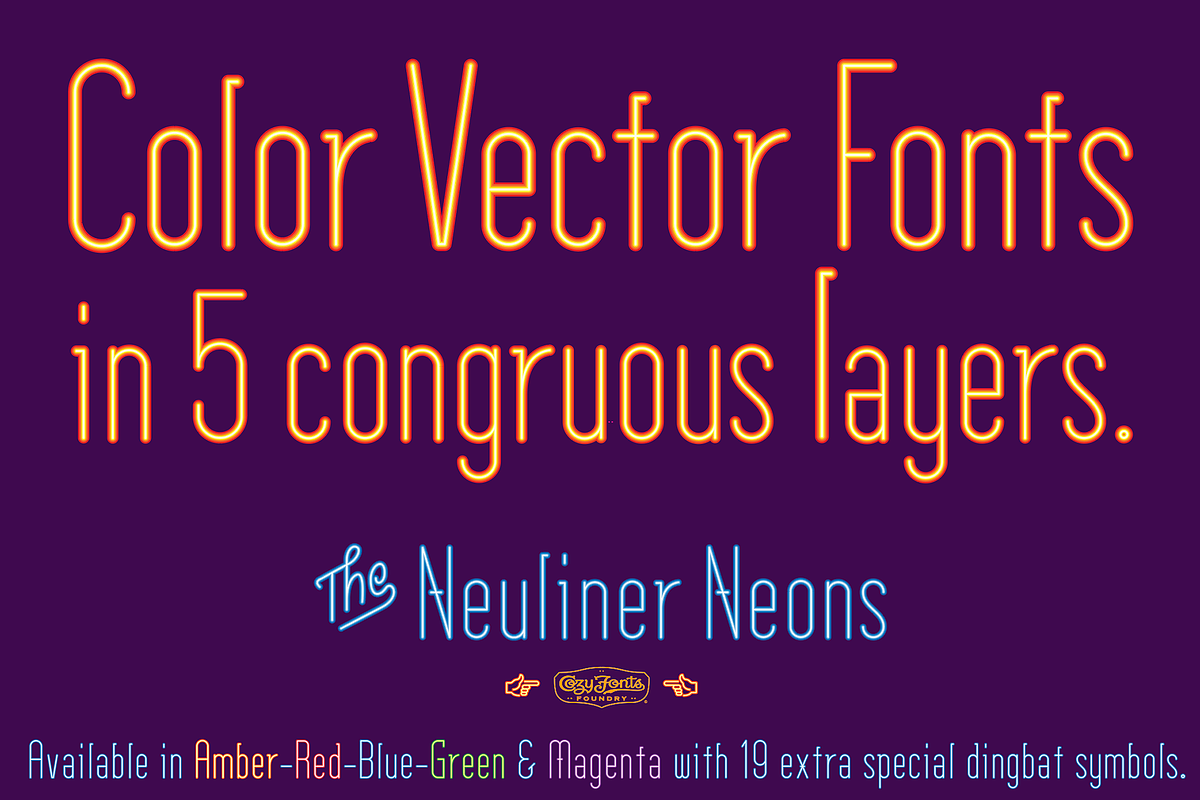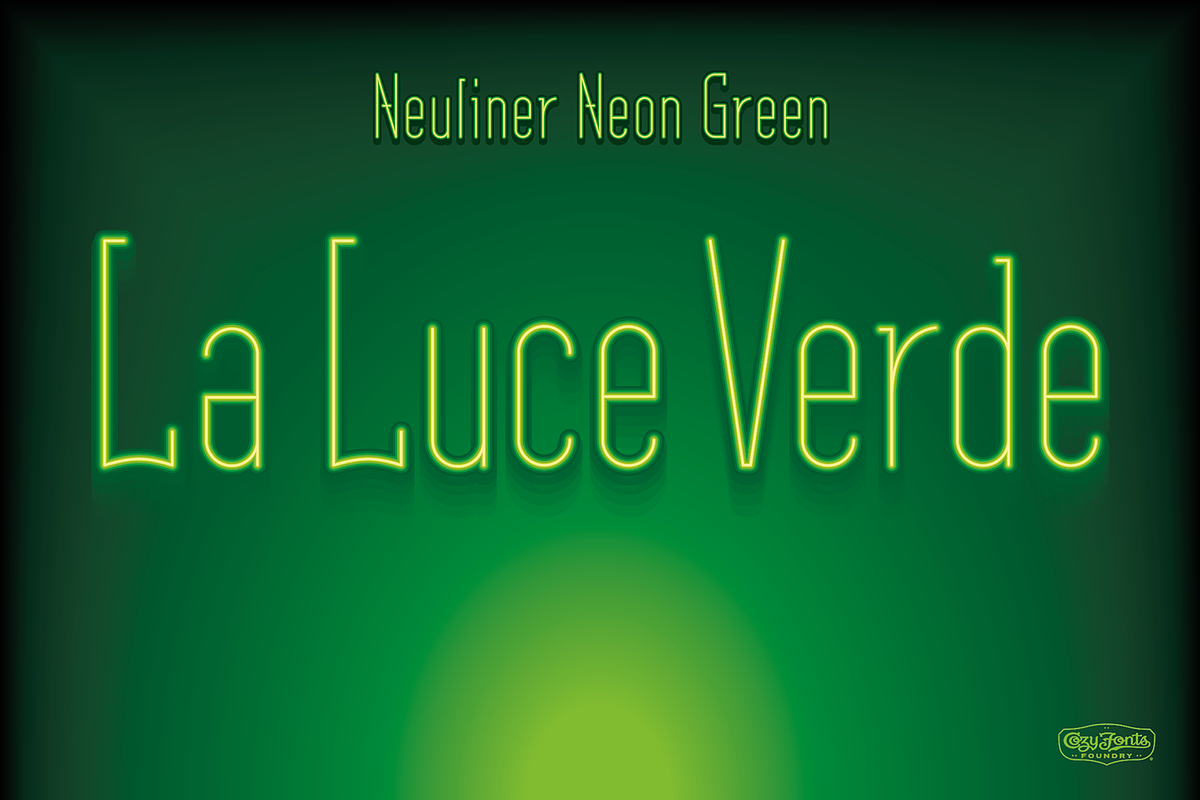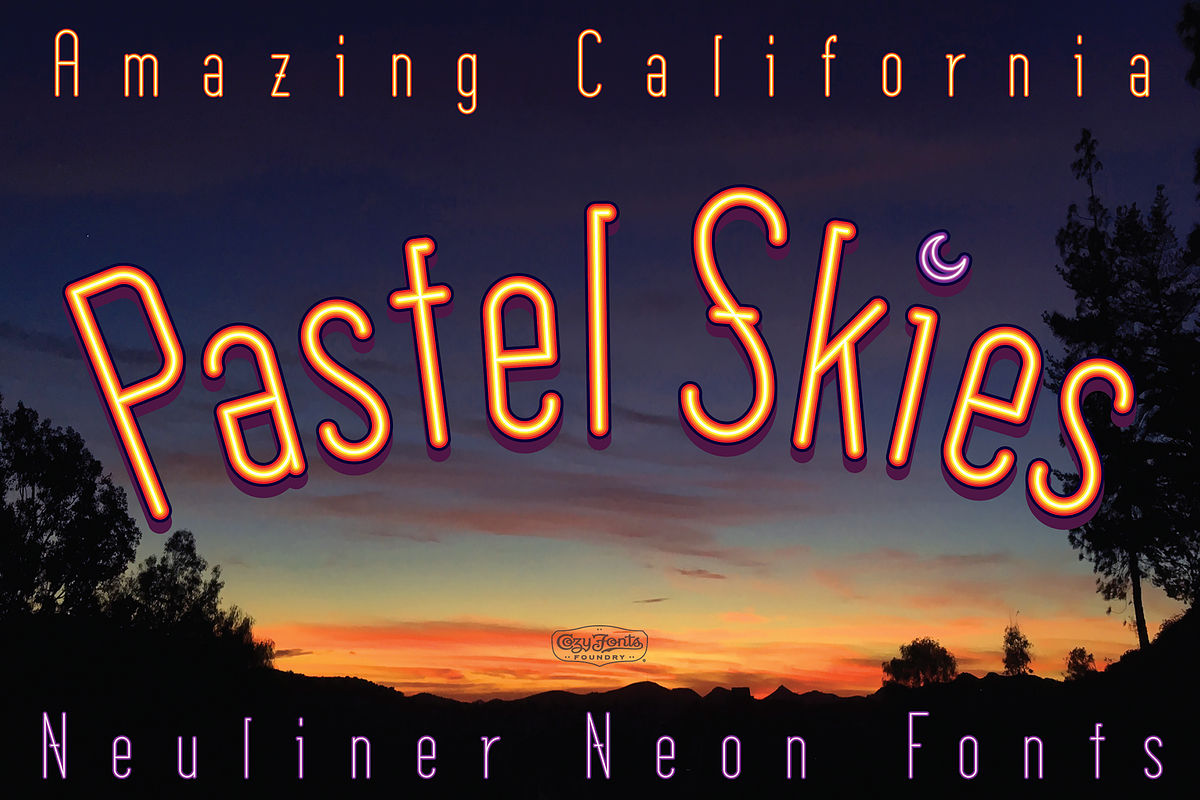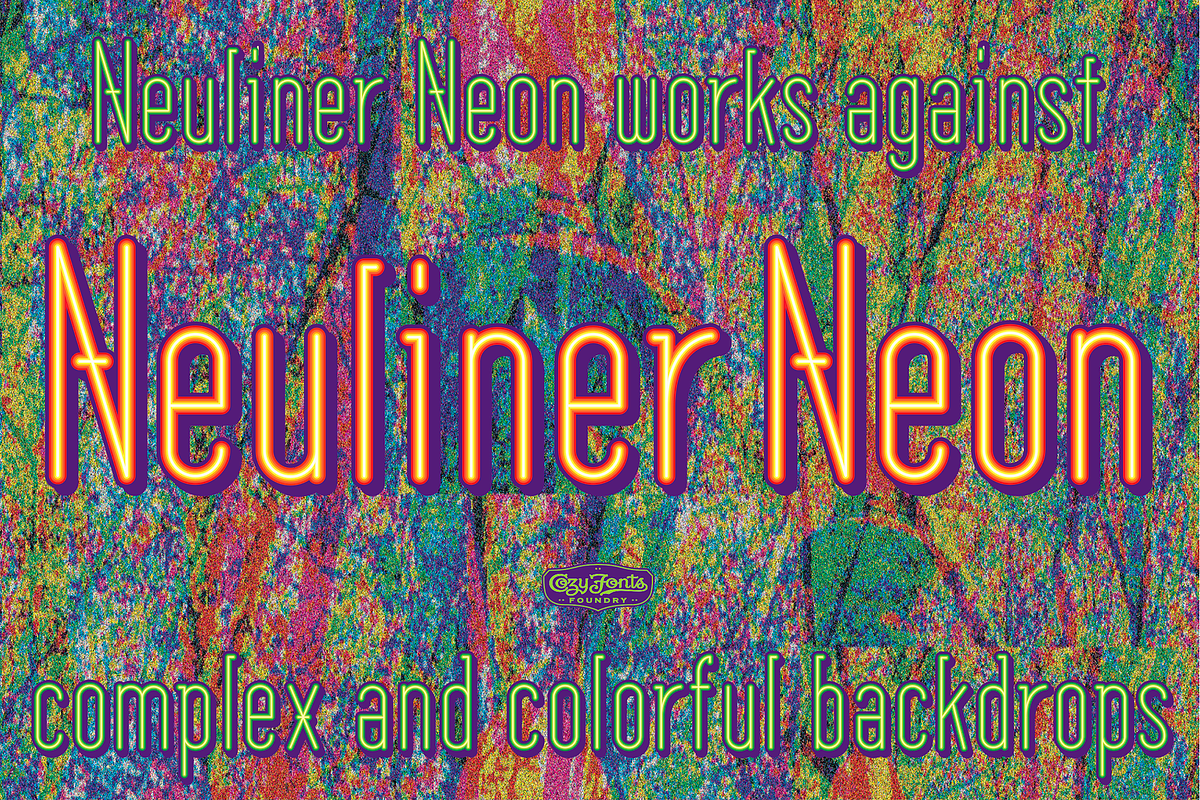
Neuliner Neon Green
The Neuliner Neon Font Family
This is the 27th Font Family presented by CozyFonts Foundry of California. There are 5 members of these color fonts,at this first release, which includes: Neon Amber Neon Blue Neon Green Neon Magenta Neon Red
Each glyph was designed and constructed in 5 congruous layers, in vector. These glyphs can be be sized Large and Small without loss of sharpness or quality. Created in an SVG.otf format these fonts Compliment any layout. They each work over a white background or any color or busy patterns. Like real neon tube lighting these fonts are best used over black or dark colored backgrounds as Sampled in the available font posters.
Additionally there are 19 extra dingbat glyphs to add spice to your graphics. The moon, star, musical notes, heart, peace symbol, etc., even lead-in common words such as The, El, Le, Il, for some common European languages. There’s also a hot coffee cup glyph for those early risers and a crescent moon for you midnight oil burners. The pointed finger hand symbol, common in the vintage sign era for a playful directional piece.
There are over 380 glyphs, 19 special dingbats that work in over 107 languages. These Neuliner neon Fonts are based on the Neuliner Font Family designed and launched by CozyFonts in 2022 has 7 Styles.